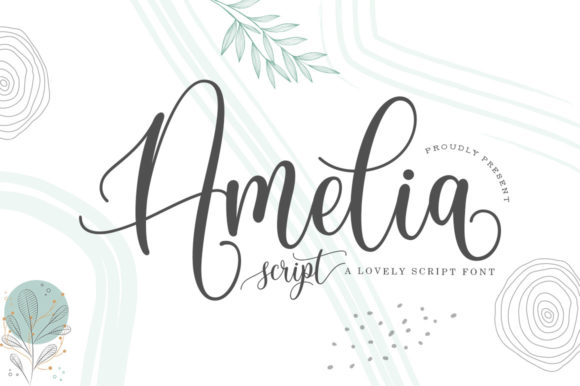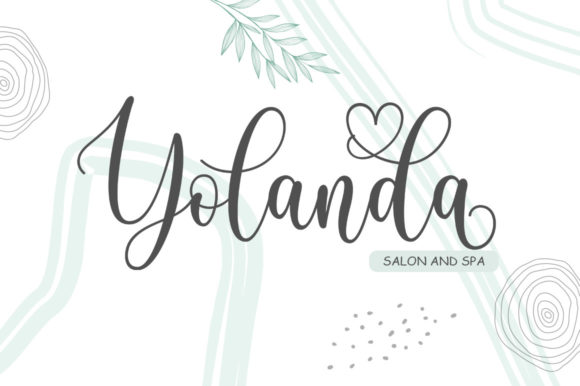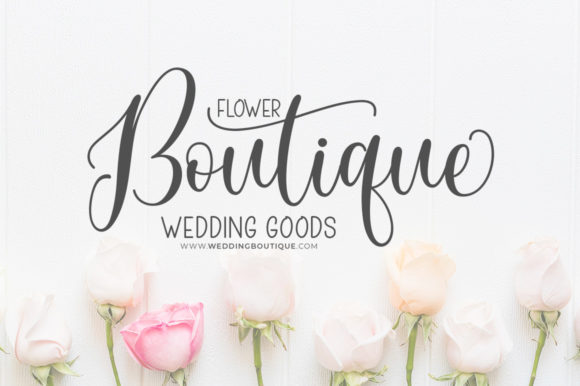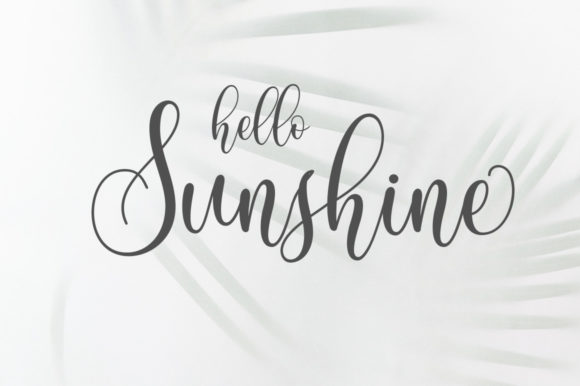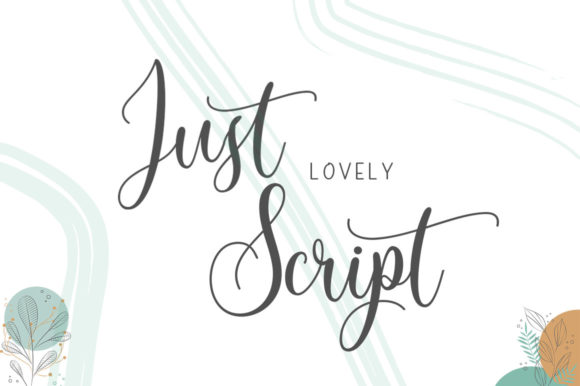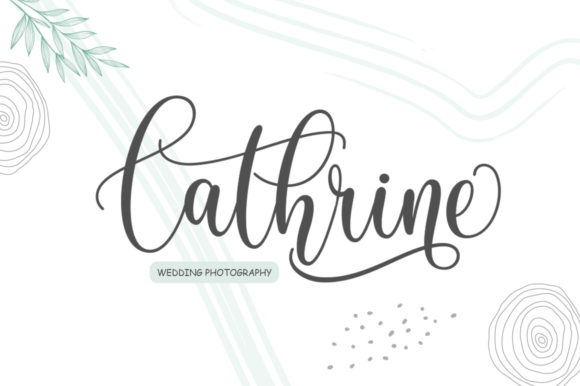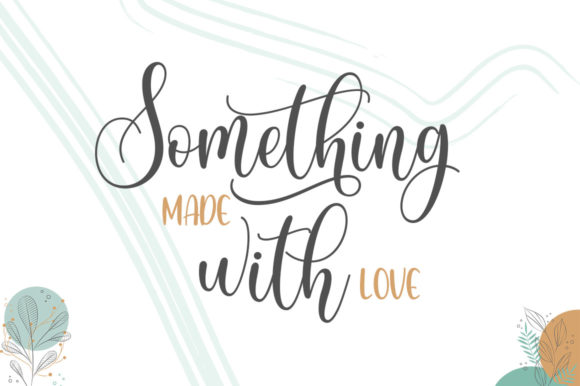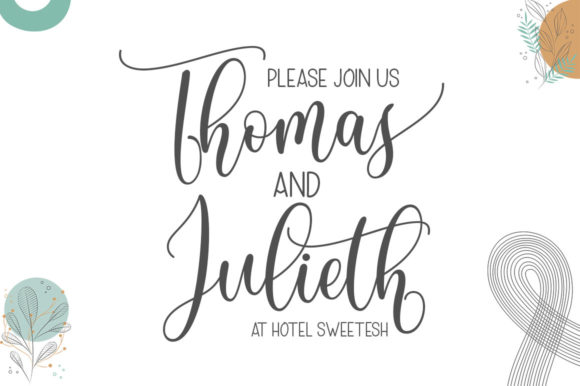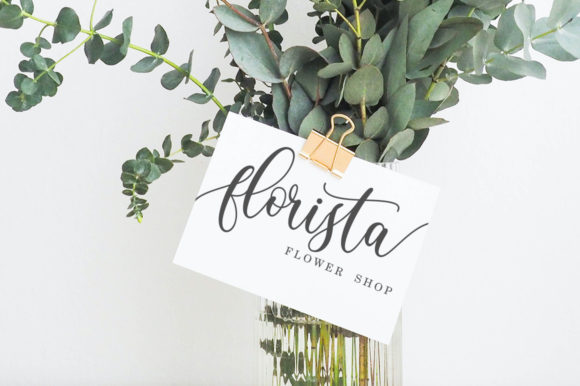
Amelia Script Font
About Amelia Script Font
Amelia is a new modern script font with an irregular baseline. Trendy and feminine, Amelia Script looks lovely on wedding invitations, thank you cards, quotes, greeting cards, logos, business cards, and more. Perfect for using in ink or watercolor.